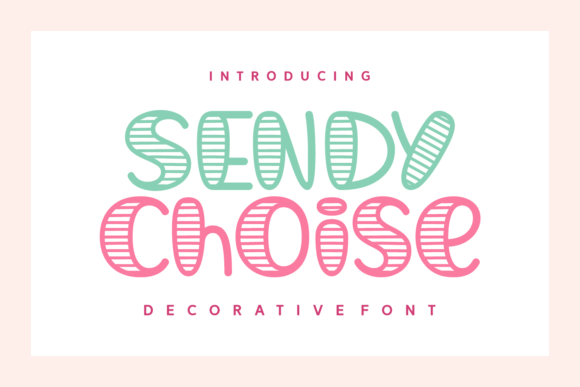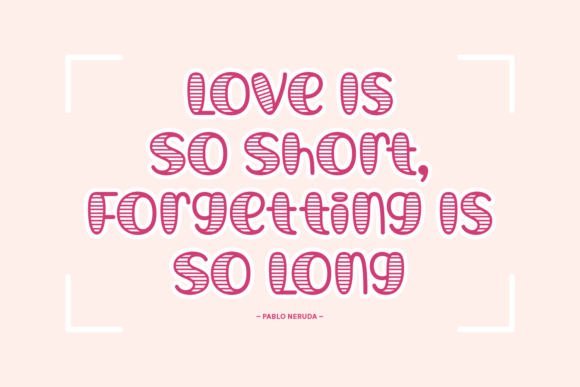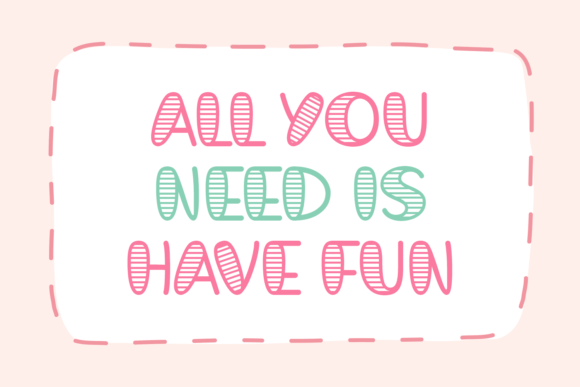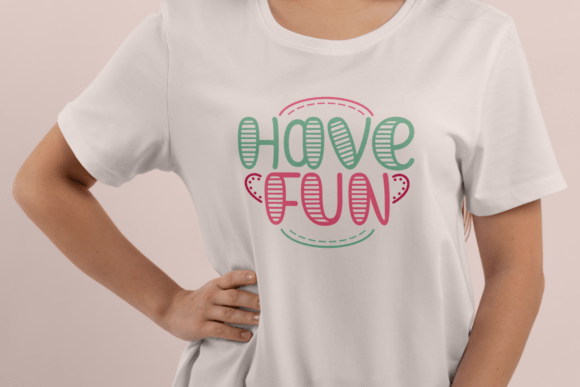
Sendy Choise Font: A Cute & Playful Handwritten Font for Cricut Crafts
About the Sendy Choise Font
The wait is over! The incredible Sendy Choise Font is now available for your design toolkit. Sendy Choise is a cute and casual handwritten decorative font. It is the perfect addition to your scrapbooks, social media, logos, business cards and so much more.